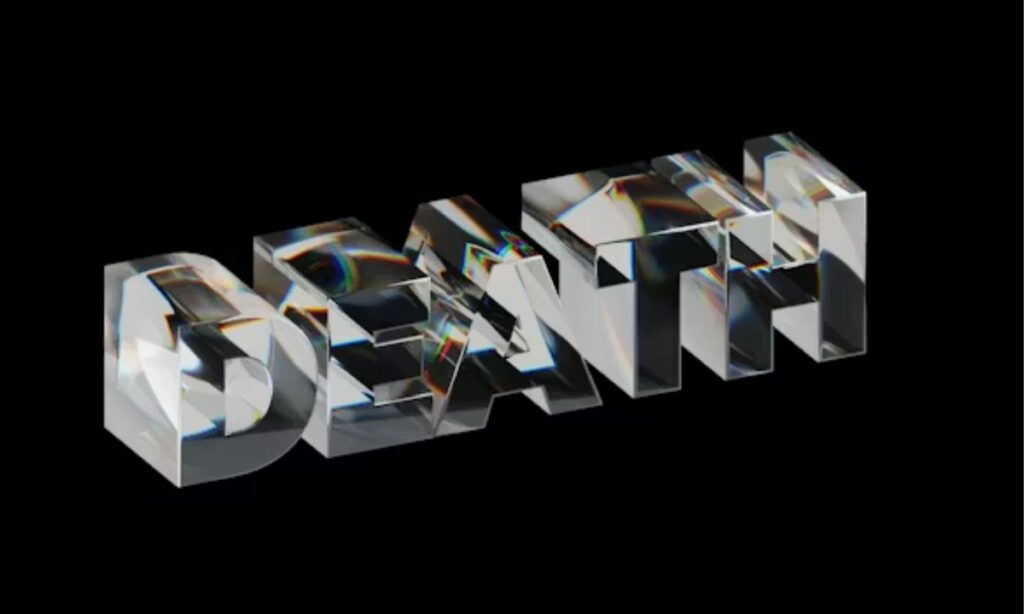
Text Changer – Convert & Copy Fancy Fonts Online
A text changer does more than swap letters. It pulls from Unicode character sets to build font styles that standard keyboards never offer. Each cool font you see online traces back to Unicode symbols shaped to look like bold, italic, or fancy fonts. Working with these tools daily, the difference between a flat post and one that stops the scroll often comes down to styled text. Platforms read these characters as plain text, so they display everywhere.
Type or paste your text into the generator, and font generator logic maps each character to a matching Unicode symbol instantly. You get awesome custom fonts, text styles, and even graphics generator outputs ready for socials. A really cool font choice makes bios, captions, and usernames stand out without any design app. Custom fonts built this way work across every platform because Unicode travels with the content, not the device.
Understanding Unicode Text Changers and Their Platform Compatibility
Unicode text changers rely on character mapping to swap standard letters with unicode characters. Platform rendering varies Instagram shows full unicode, but LinkedIn sometimes breaks it. Always test copy paste across social media before publishing. Rendering consistency determines whether your styled text lands or glitches.
When to Use Cool Text Graphics Generators vs Simple Font Stylers
A cool text graphics generator builds image-based visuals  great for banners. Simple font stylers use unicode text changers to produce styled text that stays editable. Fancy fonts and custom fonts from a font generator suit different goals. Choose a text style based on where your graphic generators or text styles will actually display.
Best Text Changer Tools for Sellers in 2026  Honest Comparison
Cool Text Graphics Generator Alternatives That Actually Work
The cool text graphics generator feels exciting at first. Then you notice the same 3D outline, neon, and glowing looks every other seller uses. That gets old fast. Real buyers scroll past overused gradient and outlined text styles. Smarter sellers switch to unicode alternatives that look just as bold but load faster. These tools skip heavy graphics generator processing entirely. They give you clean styled text with fancy fonts and custom fonts in seconds. No design skills needed, and no lag either. The best font generator options today support text styles that match neon energy without the file weight.
Top Free Unicode Font Generators for Faster Social Media Captions
Here is where things get more practical. A solid unicode font generator gives you 170 plus font styles from one free tool. Just type or paste your text, pick a look, and hit copy paste. Done. It pulls from the full unicode library, so your fancy fonts show up on every platform without breaking. Creating social media captions takes under a minute. Sellers who need fast turnaround use these daily for listings, posts, and bios. The styled text and custom fonts feel handmade but require zero design work. Free, easy, and built for speed  that is the real advantage of a good font generator in 2026.
Proven Ways Sellers Use Text Changers to Increase Conversions
Styled text and fancy fonts in product titles grab buyers fast. Sellers on Instagram, TikTok, and Facebook use text changers to make descriptions pop. Custom fonts in social media captions drive high engagement and better click-through rates. Strong visual assets built with unique styled text push real conversions up.
Text Changer Psychology: How Fancy Fonts Influence Buyer Behavior
Fancy fonts quietly shape what buyers feel before they even read a word. Elegant styles signal premium perception, while urgent styles push fast decisions through emotional triggers. Styled text builds trust and excitement together, using visual hierarchy to guide the eye naturally. Smart bold styles boost brand recall and keep mobile readability strong across every screen.
Risks and Platform Rules When Using Text Changers for Selling
Using unicode characters to style your listings looks cool, but platform rules on Meta and Amazon flag heavy overuse fast. Spam flags and shadowbans hit sellers who ignore consistency problems across devices. Unicode fallback breaks professional text into strange boxes on older phones. Rendering issues also hurt accessibility and compliance standards. Smart sellers balance creativity with authenticity to avoid these pitfalls.
What is a text changer and how can sellers use it to boost sales?
A text changer converts plain text into styled fonts. Sellers use it to make listings stand out. Bold or italic text grabs buyer attention fast. It boosts clicks and sales.
Are text changers safe to use on Instagram, TikTok, Facebook, and Amazon?
Most platforms allow styled text in small amounts. Overuse triggers spam flags on Amazon and Facebook. We always recommend testing before publishing. Keep it clean and simple.
Styled text works because it stops the scroll before a single word is read. Sellers who use text changers consistently see stronger first impressions, higher engagement, and better conversion rates across every platform. Choose your tool wisely, test your unicode fonts before publishing, and keep your styled text clean and authentic. That is how smart sellers in 2026 turn a simple text changer into a real competitive advantage.